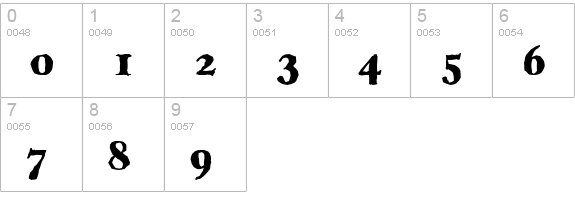
CasablancaAntique-Heavy-Regular is a heavy, high-impact variant in the CasablancaAntique typeface family \xE2\x80\x94 well suited to high-impact headlines, posters, and display advertising.
CasablancaAntique-Heavy-Regular is a stunning vintage-inspired font that exudes elegance and nostalgia. With its intricate detailing and timeless charm, this font is perfect for creating eye-catching designs with a touch of old-world sophistication. The bold lines and ornate flourishes of CasablancaAntique-Heavy-Regular make it ideal for projects that require a touch of grandeur and refinement. Best of all, CasablancaAntique-Heavy-Regular is available for free download at FontsMarket.com. Whether you're working on a vintage-themed project, a classic wedding invitation, or a stylish logo design, this font will add a touch of elegance and class to your work. Download CasablancaAntique-Heavy-Regular today and elevate your designs with its timeless beauty.